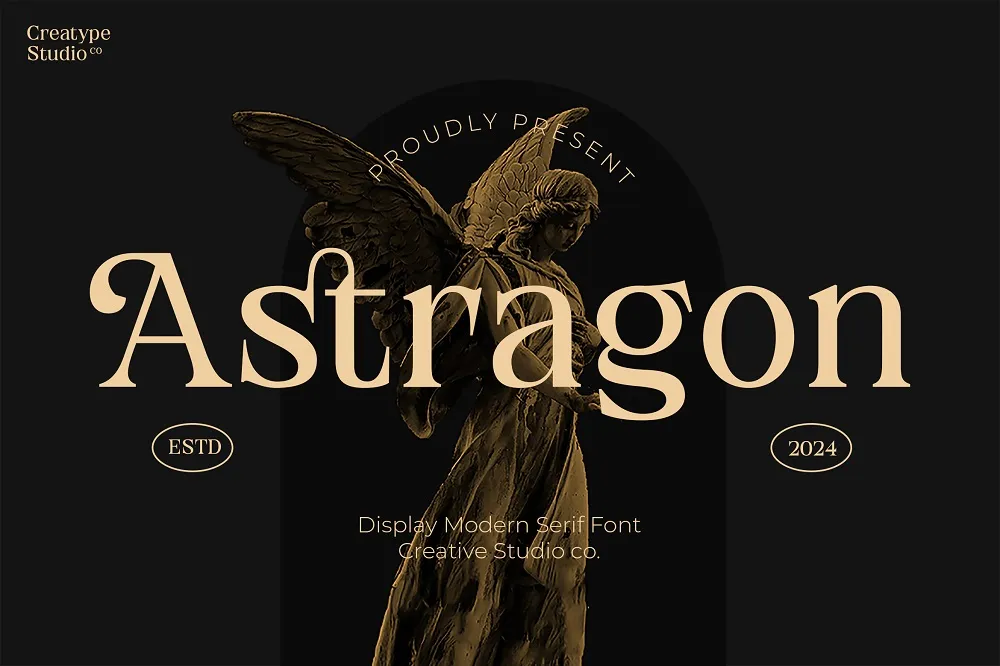
Astragon Font
Which makes it suitable for a wide range of products: greeting cards, packaging, logo design, posters and others. It is versatile and you can make unique, modern designs with it.